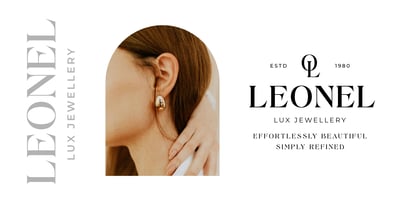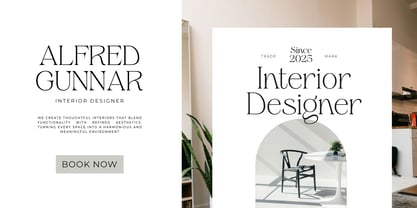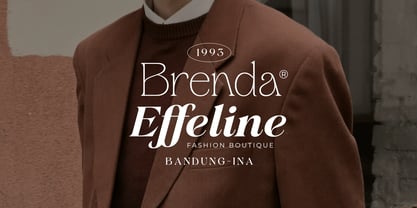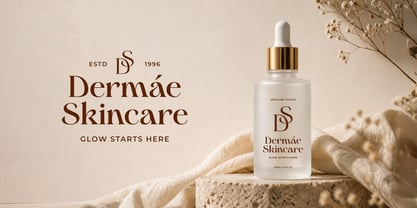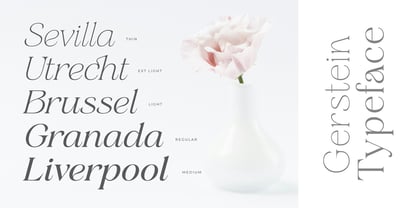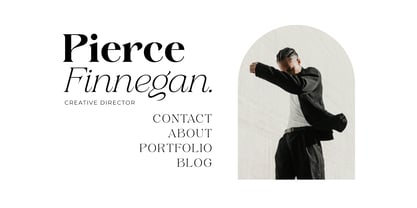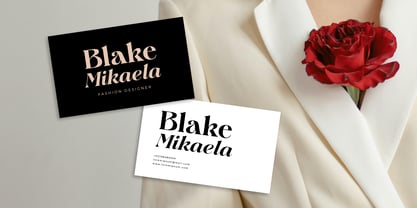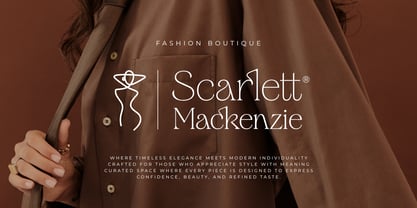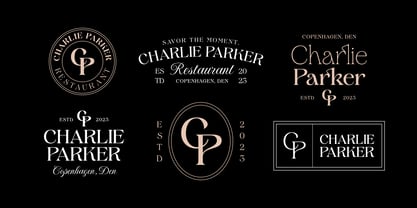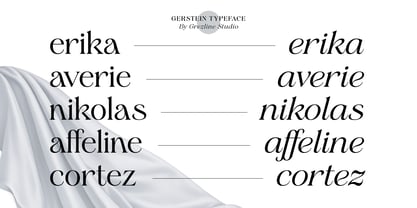
Gerstein
Die Schriftfamilie Gerstein wurde von Akhmad Reza Fauzi entworfen und von Grezline Studio veröffentlicht. Gerstein enthält 16 Stile und Familienpaketoptionen. Mehr über diese Familie
Hello everyone, let me introduce you my newest typeface: Gerstein, a refined modern serif collection designed to bring elegance, confidence and timeless sophistication to every creative project.
With its graceful letterforms, striking contrast, and versatile styles, Gerstein is perfect for luxury branding, fashion editorials, beauty packaging, premium logos, wedding stationery and high-end digital content. Whether you’re crafting a bold headline or a delicate visual identity, this typeface delivers a polished and memorable impression.
– 16 Font Family
– Multilingual Language
Designer: Akhmad Reza Fauzi
Foundry: Grezline Studio